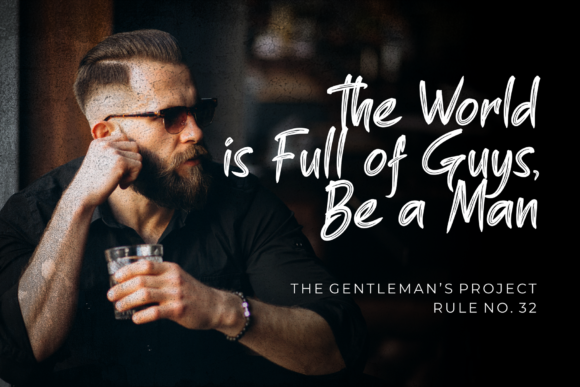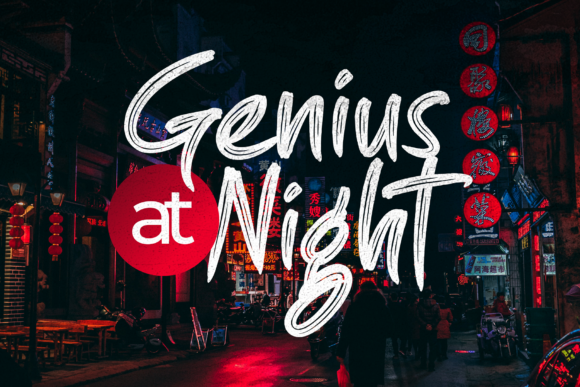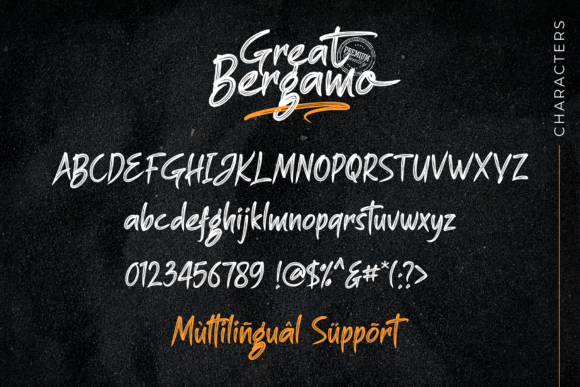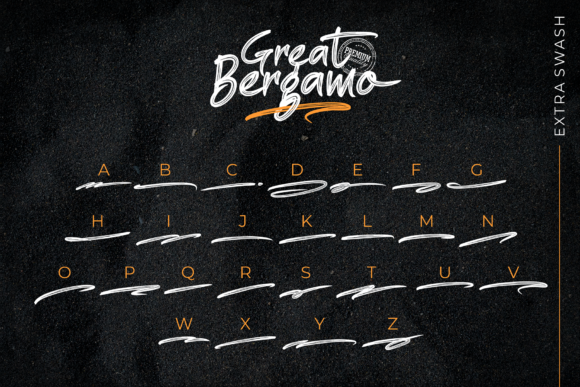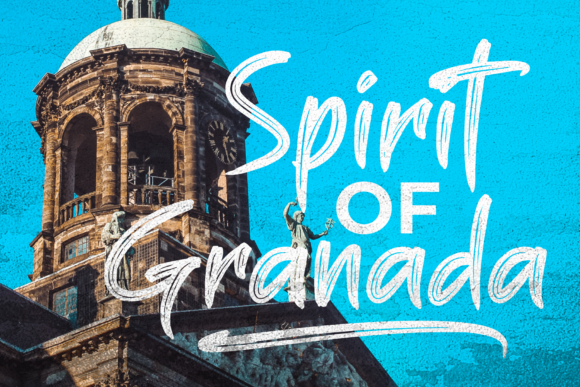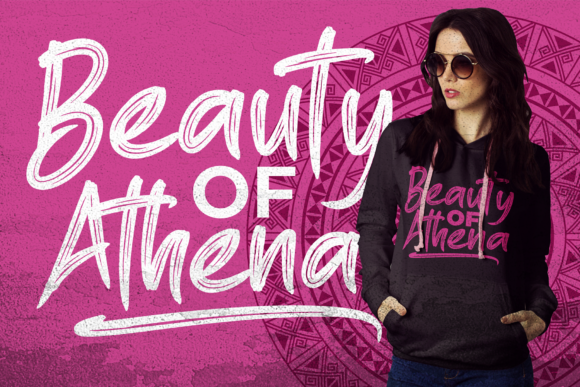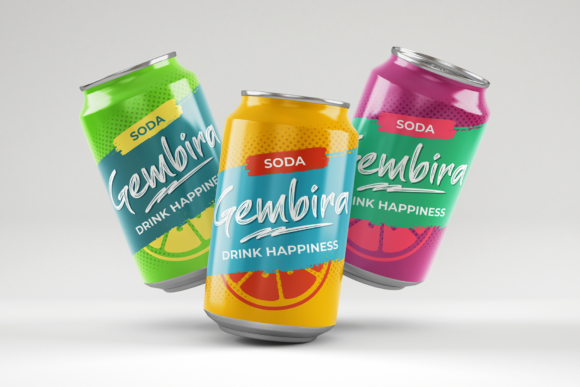
Great Bergamo Font
About Great Bergamo Font
Certainly! Great Bergamo is a flowing handwritten font that exudes elegance and charm. Its graceful strokes and sophisticated details make it a perfect choice for a wide range of creative projects. Whether you’re working on wedding invitations, branding, quotes, greeting cards, logos, or any design that requires a touch of handwritten beauty, Great Bergamo is sure to captivate your audience.
The font’s flowing and curvaceous letters give it a sense of movement and fluidity, making it visually appealing and engaging. Its elegant touch adds a refined and timeless quality that can elevate your designs to a whole new level.
For wedding invitations, Great Bergamo brings a romantic and intimate feel. The script’s delicate and graceful lines capture the sentiment of love and celebration, setting the perfect tone for the special day. Its versatility also shines through in creating save-the-dates, RSVP cards, and other wedding stationery.
In branding, Great Bergamo can convey sophistication and personal connection. Its handwritten nature adds a human touch to your brand identity, making it more relatable and approachable to your audience. Whether you’re designing a logo, business cards, or packaging, the font adds a sense of elegance that leaves a lasting impression.
For quotes and greeting cards, Great Bergamo’s timeless style adds a sense of authenticity and warmth. It enhances the emotional impact of your messages, helping you connect with your audience on a deeper level. Its flowing letters can emphasize the sentiment behind the words, making the text feel heartfelt and genuine.
In the realm of social media, Great Bergamo can make your posts and captions stand out. Its distinct and elegant appearance draws attention, making your content more memorable in the fast-paced world of online platforms.
When used for logos, Great Bergamo brings a touch of artistic flair. It can enhance the visual identity of creative businesses, such as art studios, design agencies, or boutique shops, by reflecting their unique style and creativity.
Overall, Great Bergamo is a font that combines elegance and versatility, making it a valuable asset in your design toolkit. Its flowing handwritten style, described by an elegant touch, allows you to create designs that evoke emotions, convey messages, and leave a lasting impact. Whether you’re working on personal projects or professional endeavors, Great Bergamo is ready to help you craft spectacular and captivating designs.